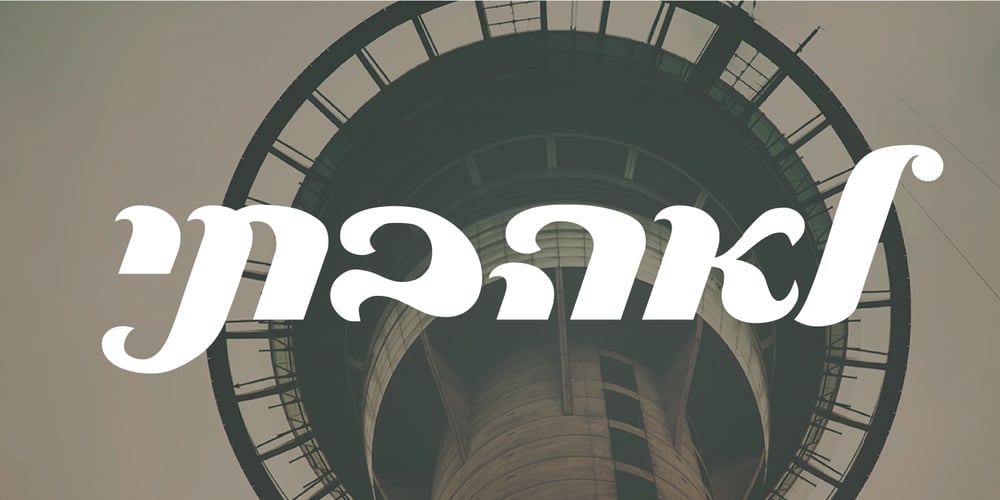
ShtayimSucar MF Font Family was designed by Zvika Rosenberg and published by Masterfont. ShtayimSucar MF contains 1 styles and family package options. Classic, romatic and sweet fonts to fit your candy package or wedding invitation.